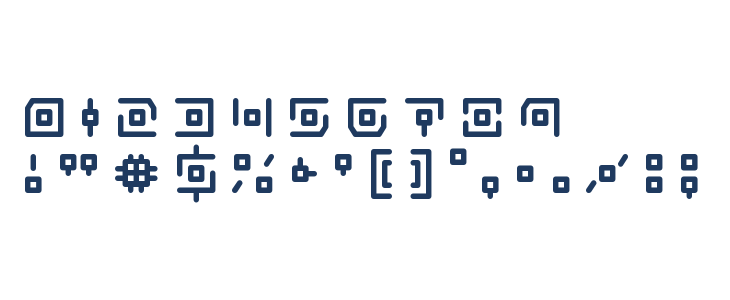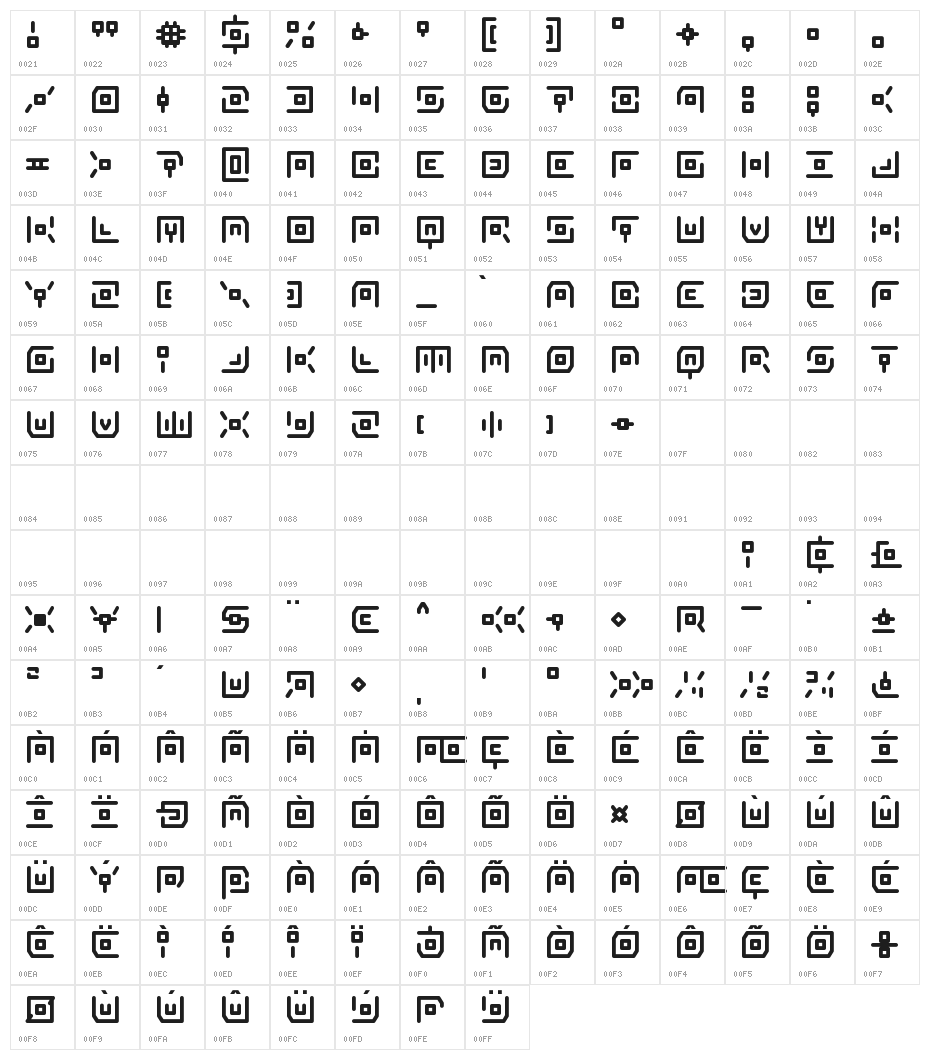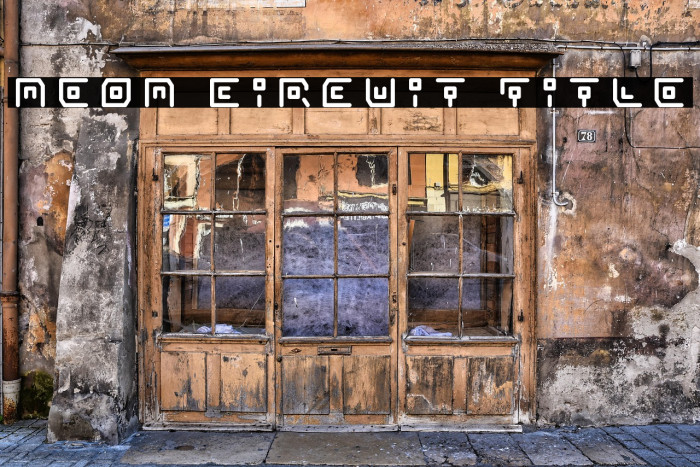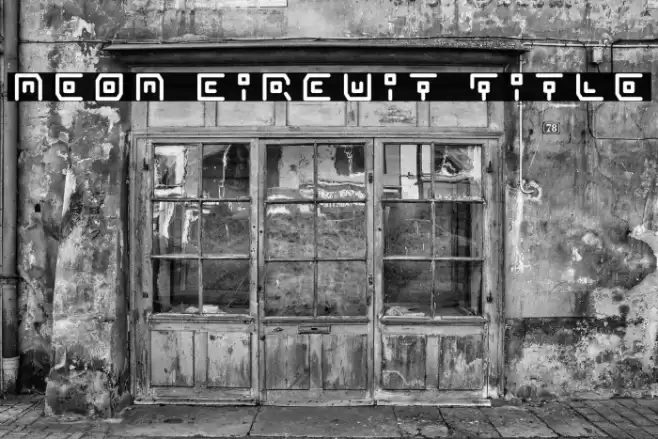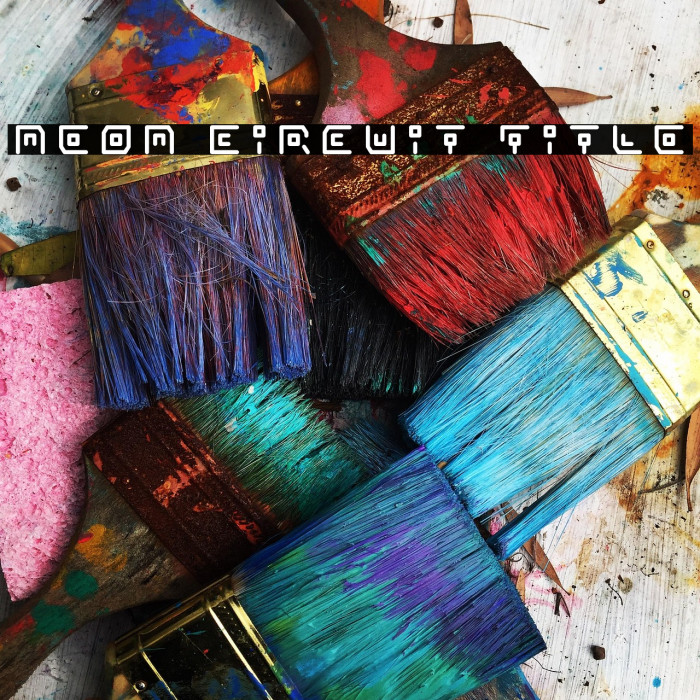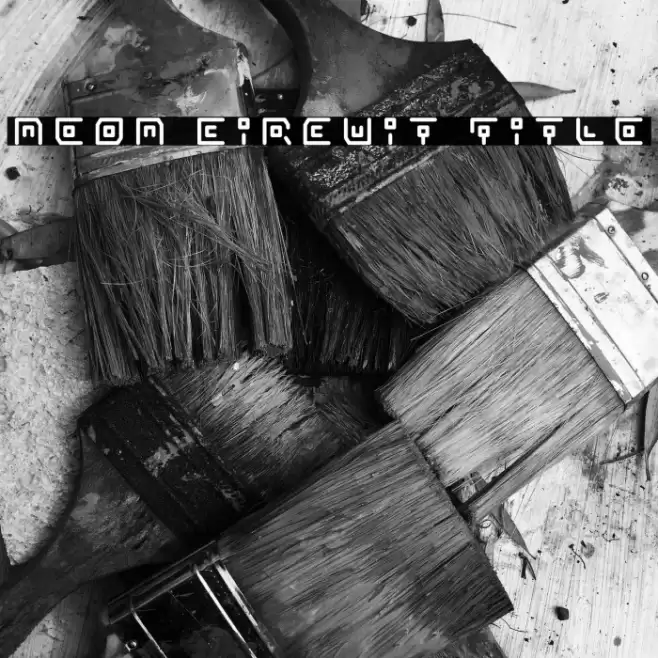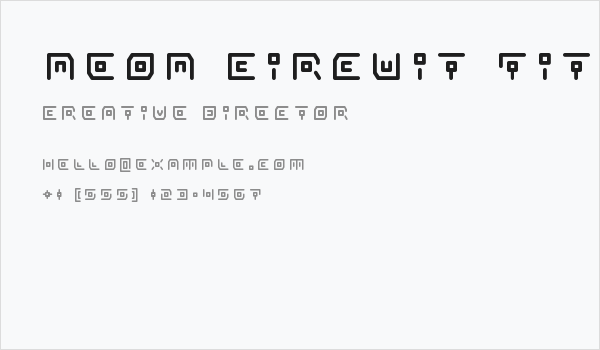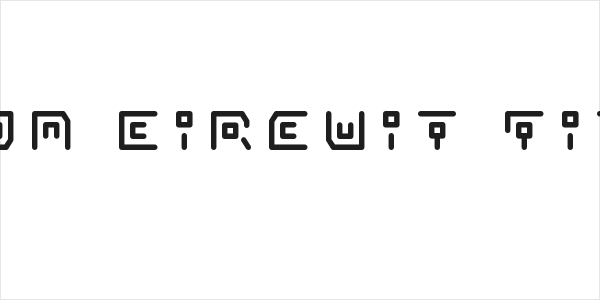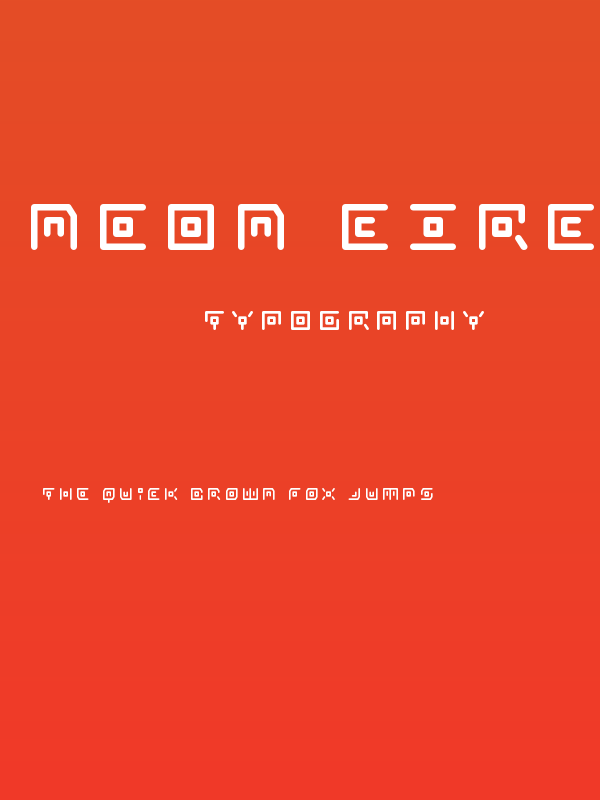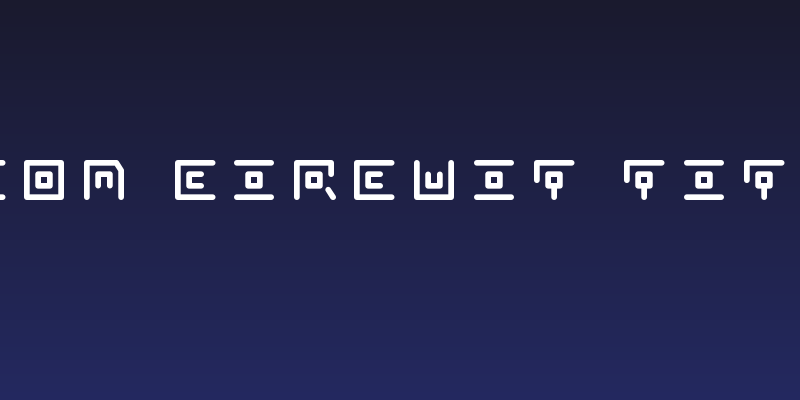
Neon Circuit Title Font
Neon Circuit Title Description
This font features a futuristic and digital aesthetic, reminiscent of circuit board patterns and neon signage. Each character is crafted with a geometric precision, incorporating sharp angles and square-like shapes that suggest a high-tech environment. The design is consistent across both uppercase and lowercase letters, as well as numbers and special characters, maintaining a cohesive look. The font's unique style makes it stand out, with a distinct visual rhythm that captures the essence of modern technology and innovation.
| Use Case | Logos, Titles, Digital Art |
| Proposed Projects | Ideal for tech-related branding, sci-fi movie titles, video game interfaces, and digital art projects. |